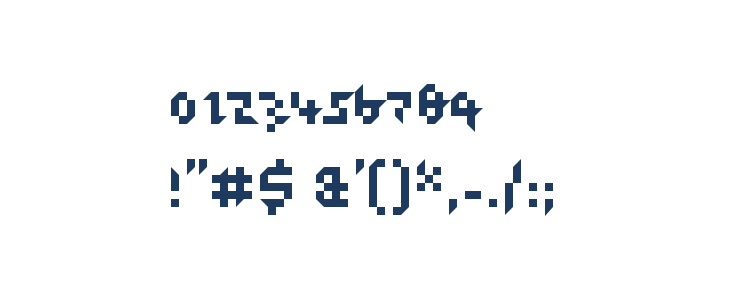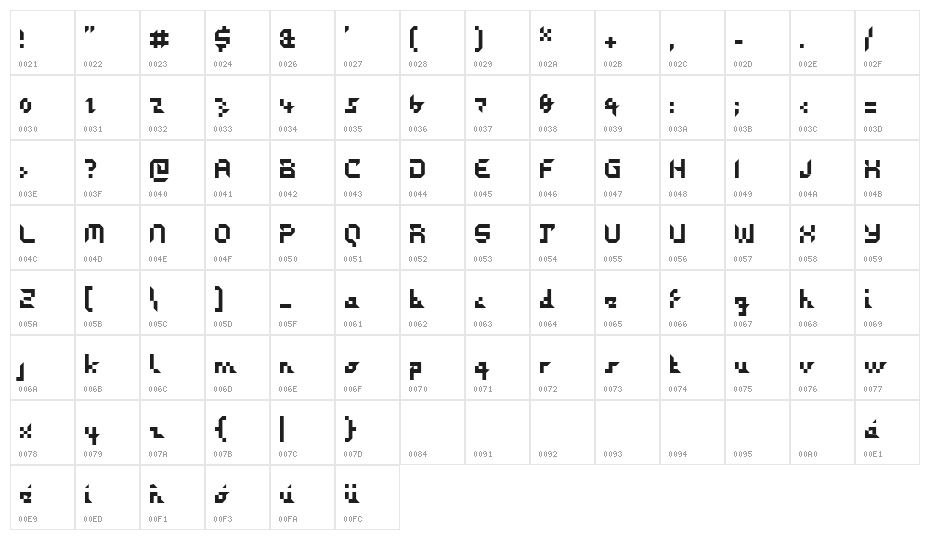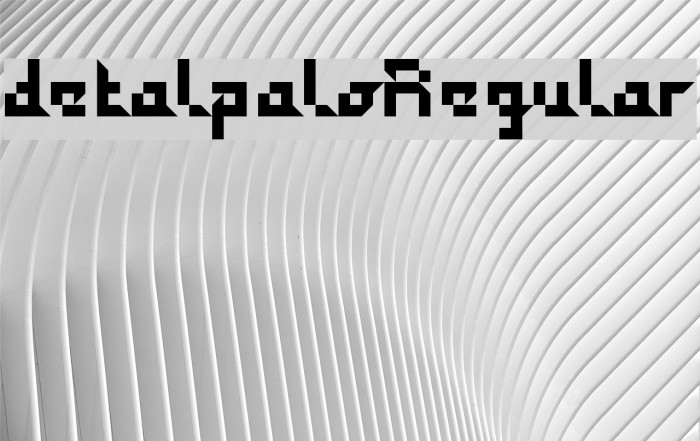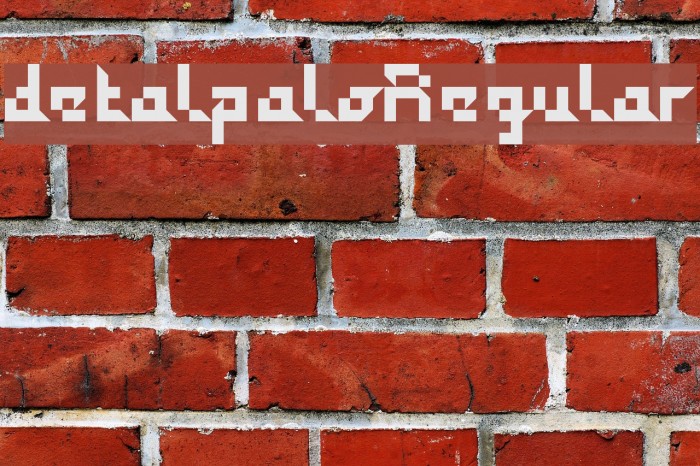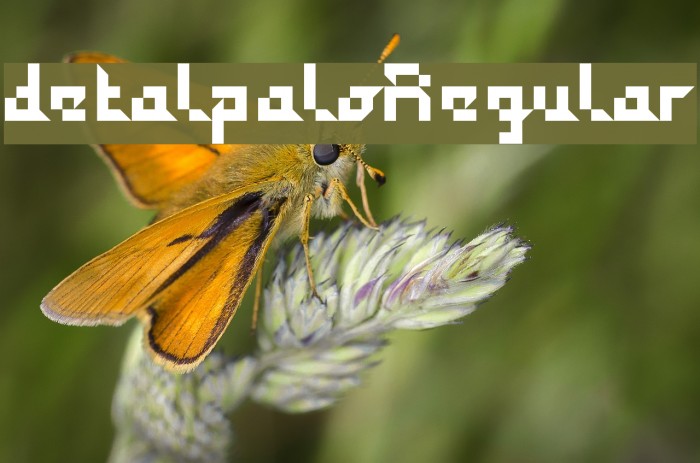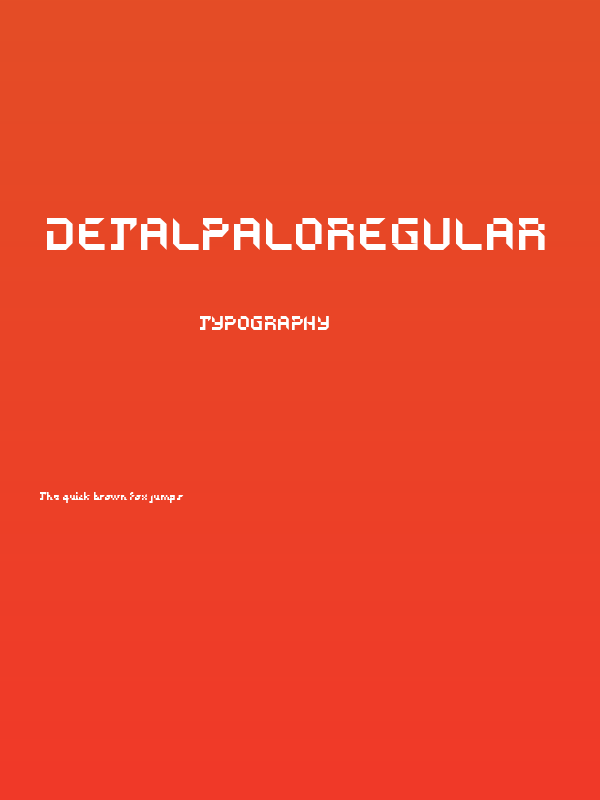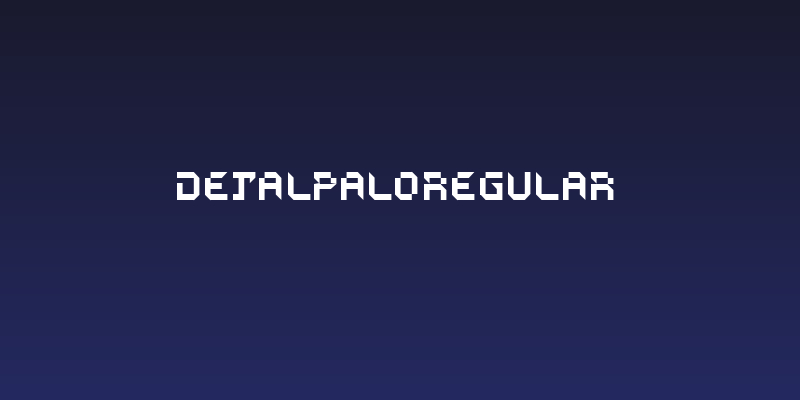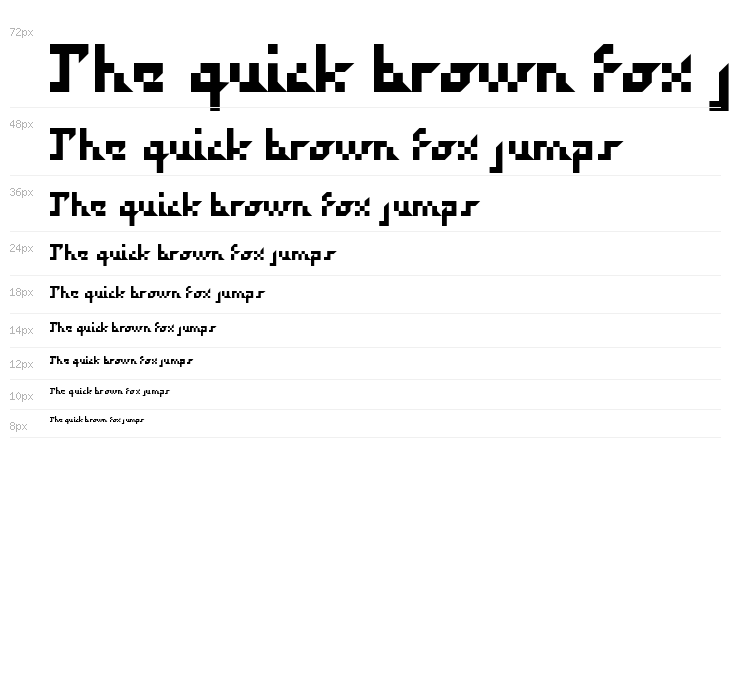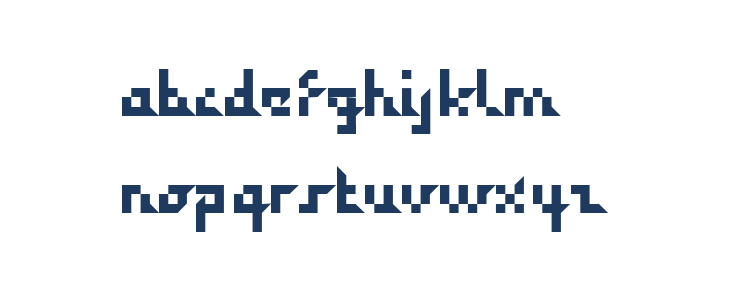
detalpaloRegular Font
detalpaloRegular Description
This font features a bold, geometric design with a distinctly modern and edgy appearance. The characters are constructed with sharp angles and straight lines, giving it a futuristic and digital feel. The uppercase and lowercase letters maintain a consistent style, with a blocky and robust structure. Numbers and special characters follow the same design principles, ensuring uniformity across all glyphs. The font's unique style makes it stand out, ideal for projects that require a strong visual impact.
Proposed ProjectsIdeal for digital art, video game design, tech branding, and futuristic-themed posters.